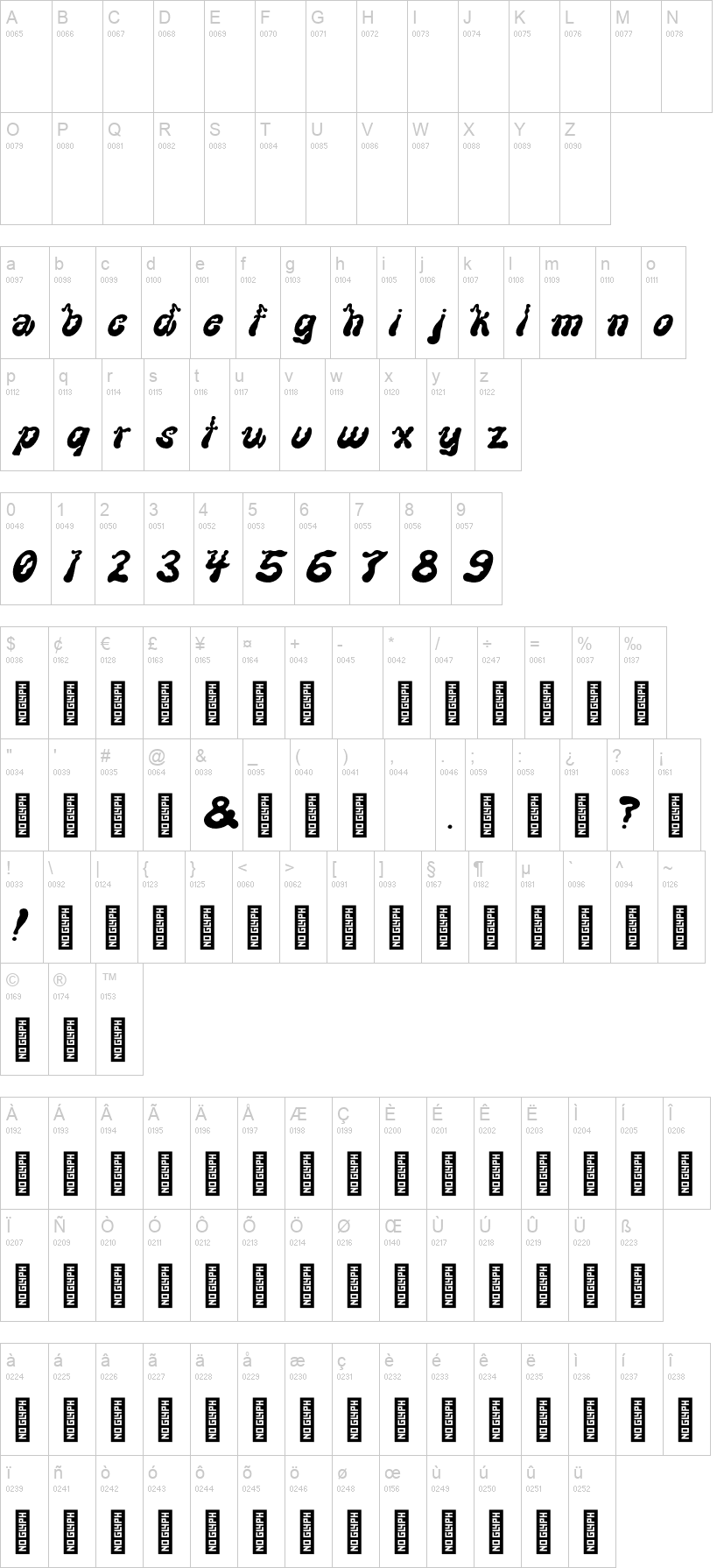
Goosebumps
Note of the authorGoosebumps is a spooky and eccentric typeface that uses
warped edges and playful curves to form a
unique, hair-raising type series. The anatomy of
the letters are characterized by thick and thin
strokes, wavy, uneven bowls, and a subtle slant
in each letter’s posture. Goosebumps delivers
a fun, spine-chilling, yet pleasant face to the
designer’s typography arsenal.